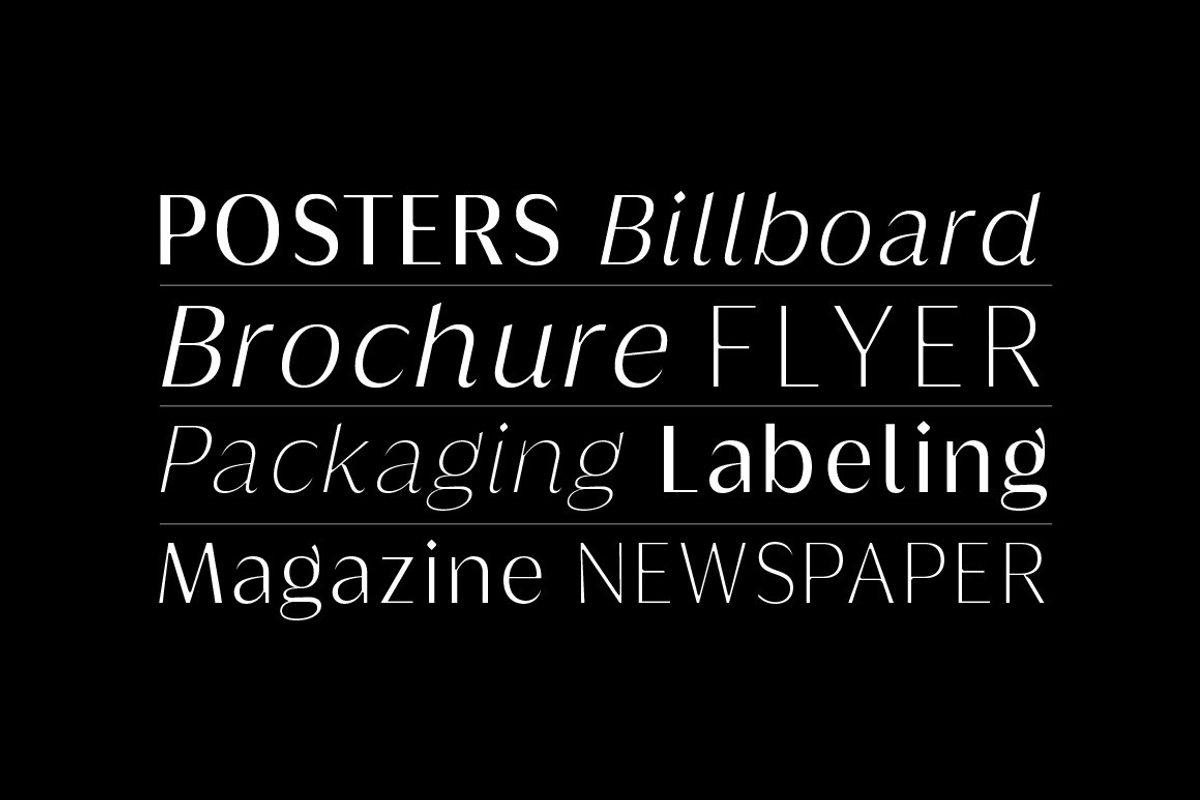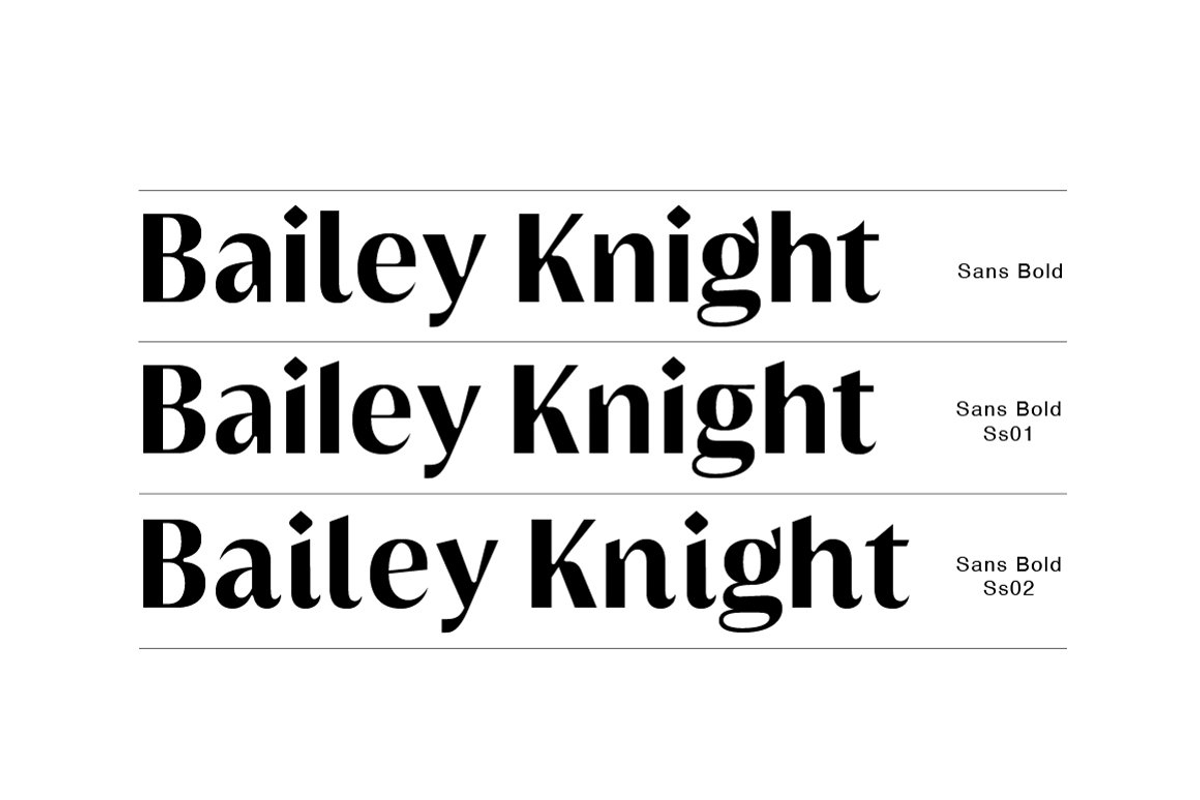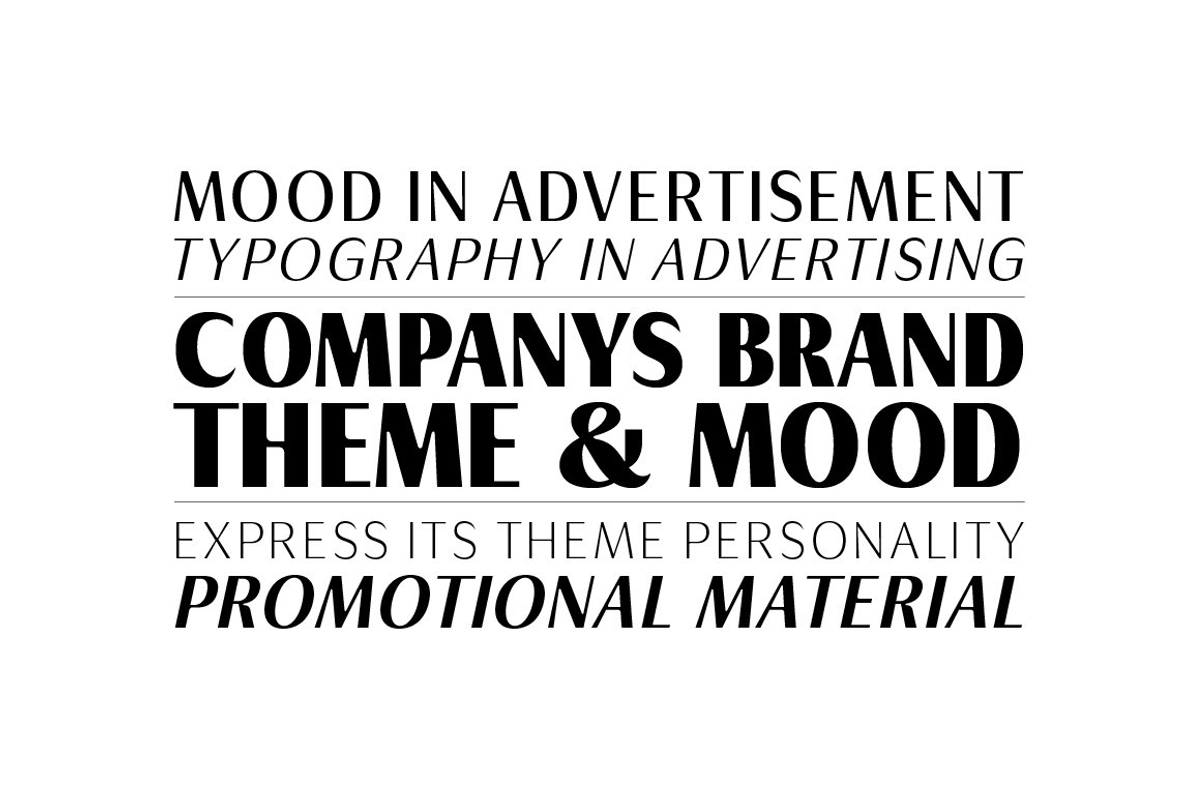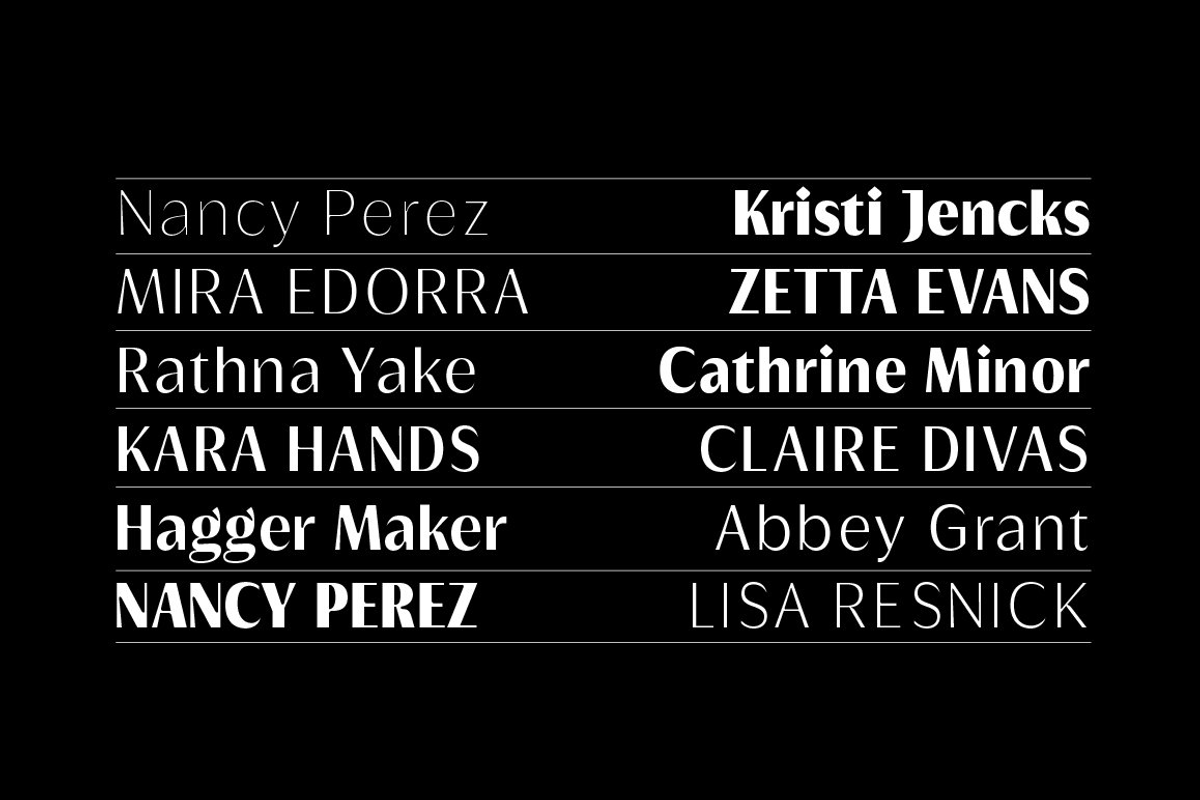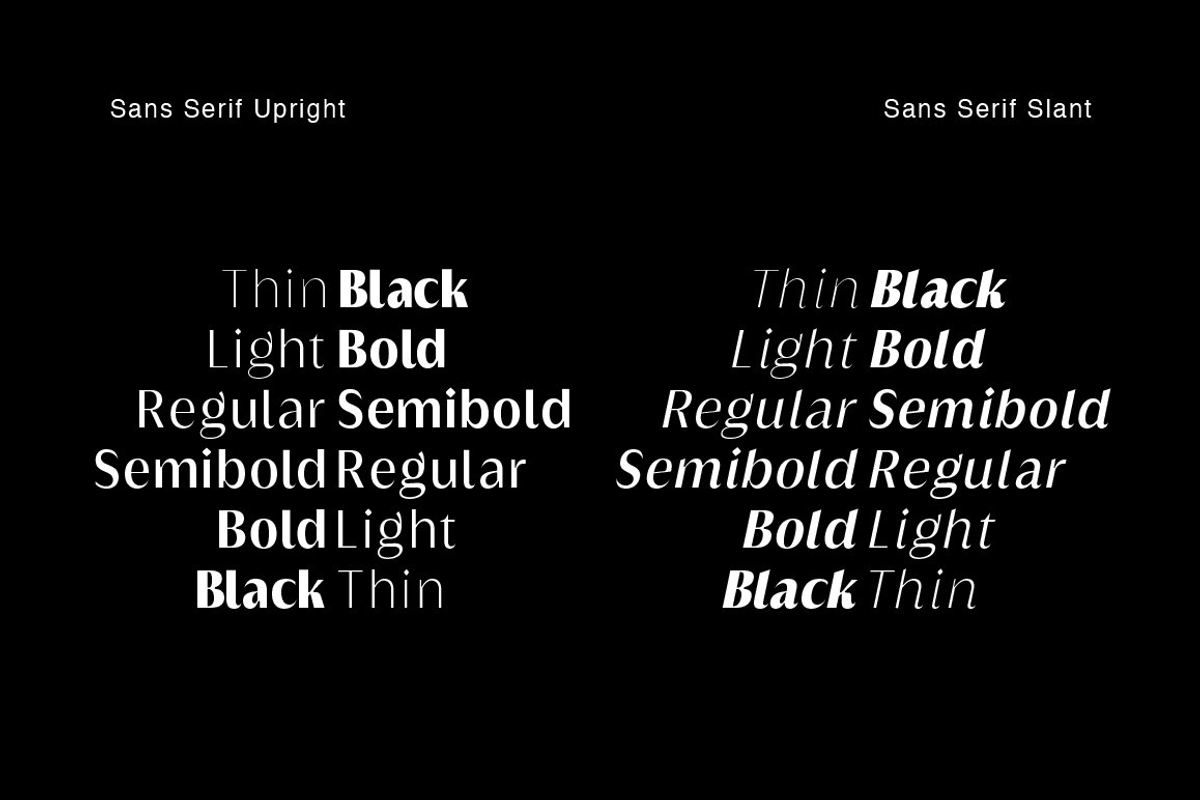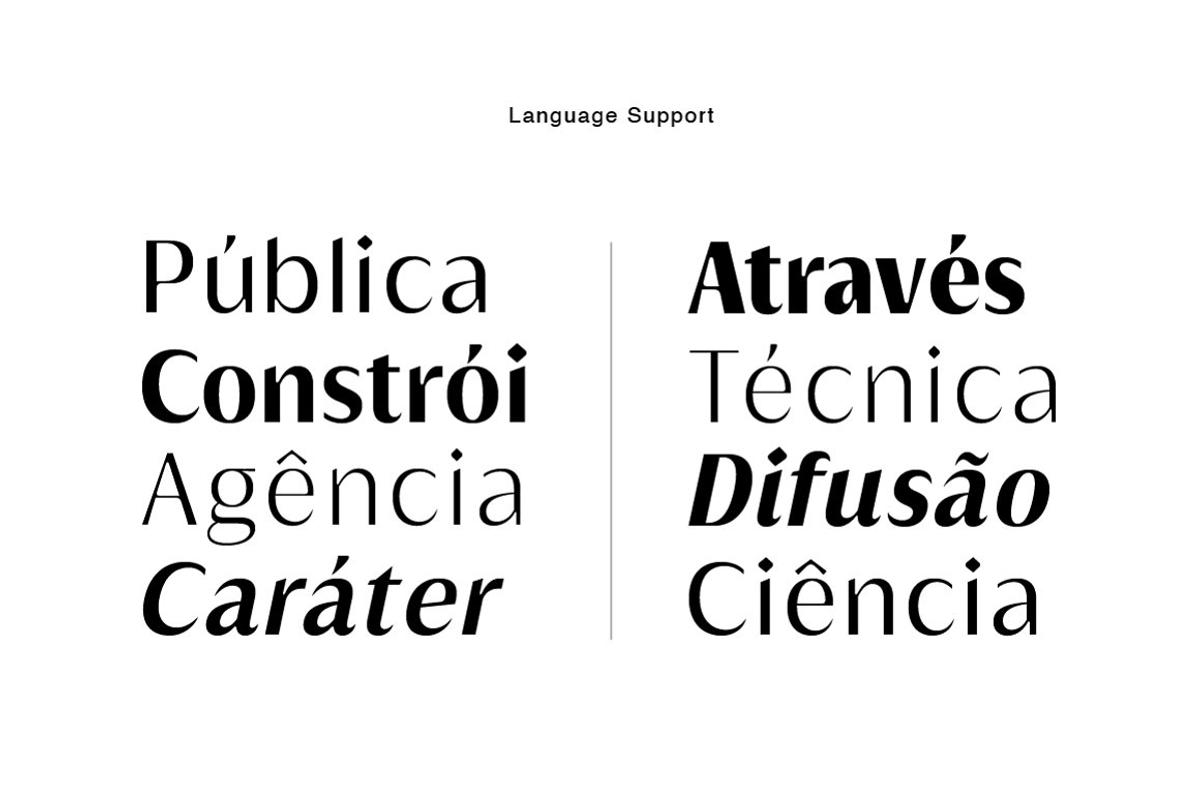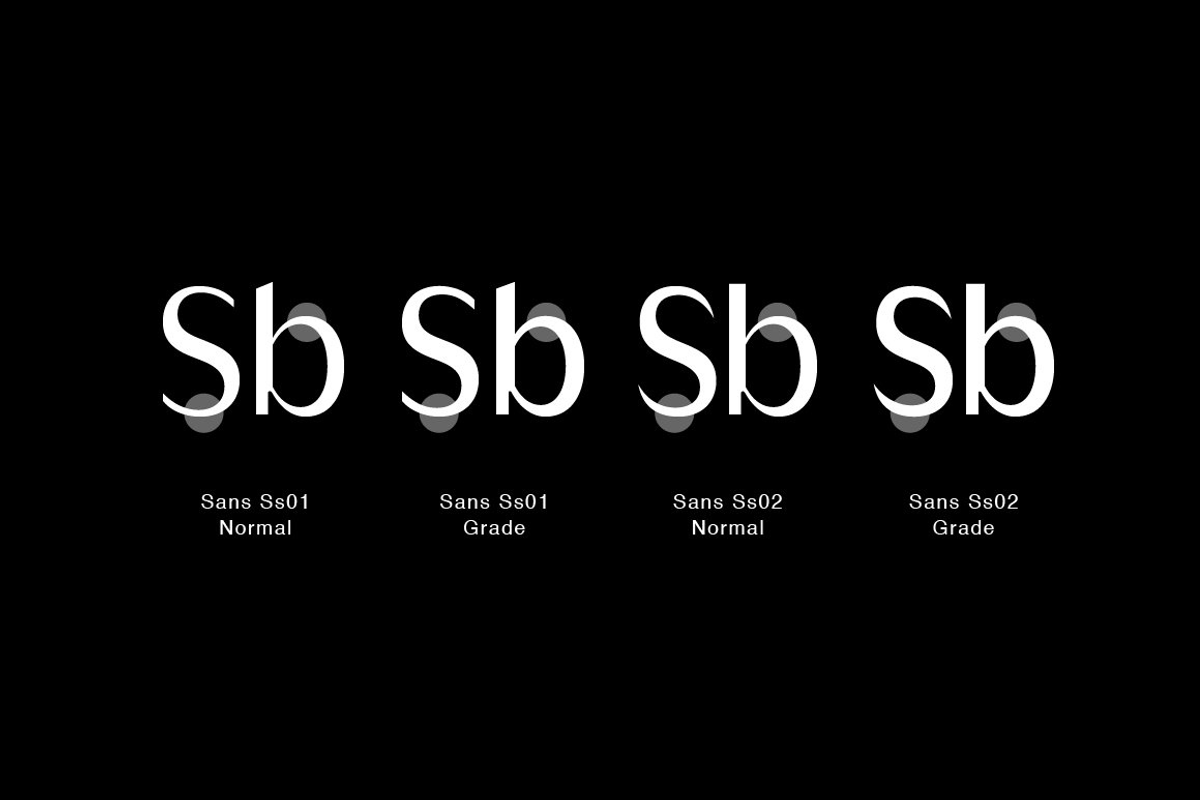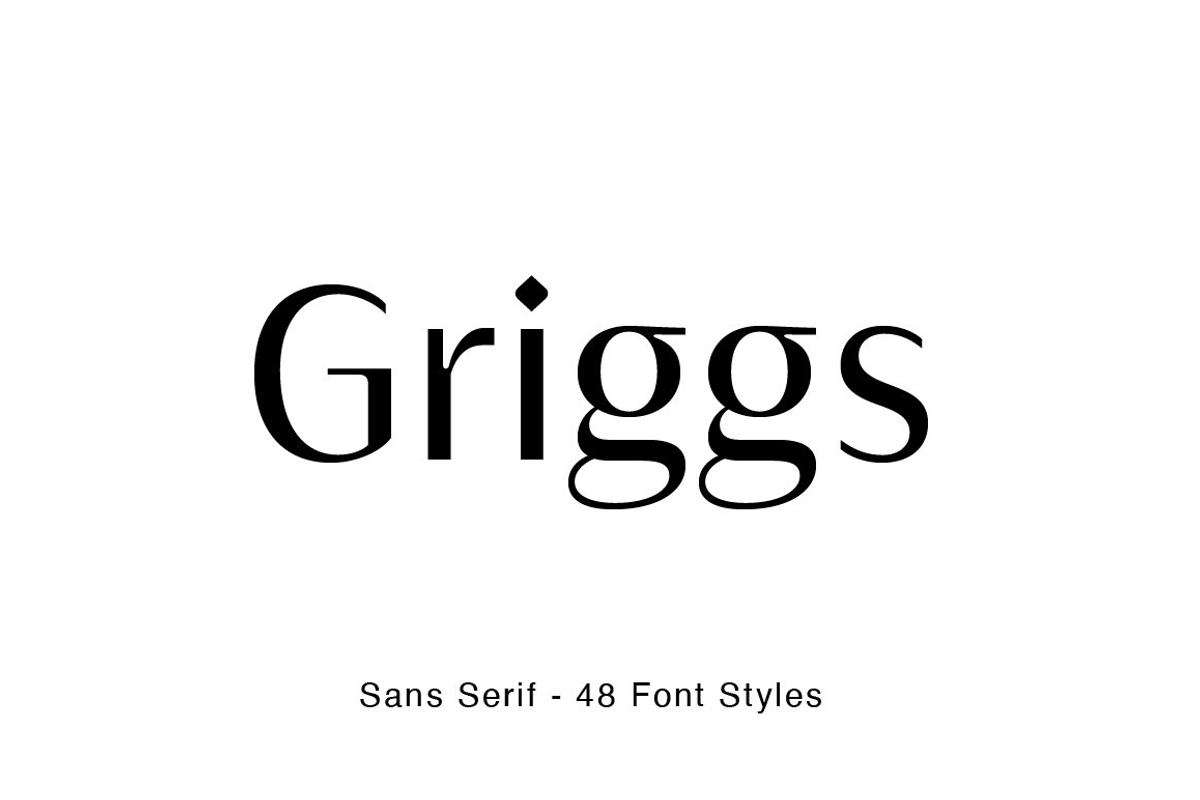
Griggs Sans Serif
Griggs Sans is a high contrast, inktraps, sharp form, and clean cuts, to convey the impression of opulence, elegance with a distinctive look. Each typeface contains with a warm personality and contemporary look. With different stylistic sets, you can choose the best-desired result for your design. You can change the feel of your design from more delicate, to bold to its sharpest most style. It’s a brilliant choice for branding, identity design, editorial design, logo design, display and packaging design etc.
Typeface Features:
- 325 Glyphs
- 6 Weight: Thin, Light, Regular, Semi Bold, Bold, Black
- Total 48 Styles + Slant
- Opentype Features: Stylistic Set 1, Stylistic Set 2
- Latin Language support including
- Kerning